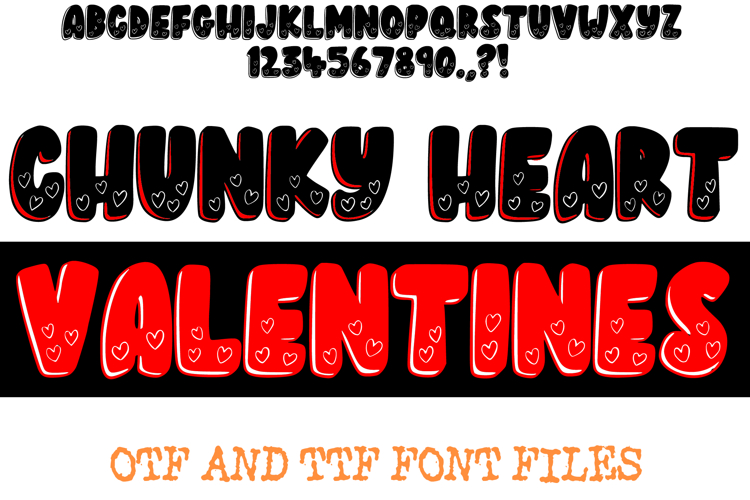
Chunky Heart Valentines Doodle Font Love Cute Typeface
Make a massive statement of love with the Chunky Heart Valentines Font! This high-impact display typeface is designed for maximum visibility, featuring thick, "puffy" bubble characters with a solid black fill. Each letter and number is uniquely decorated with a scattering of tiny, hand-drawn white hearts nestled inside, creating a sweet and stylish "cutout" effect perfect for the Valentine's season.
The heavy, rounded weight of these characters ensures your headlines stand out, while the internal heart details add a touch of romantic whimsy. Whether you are creating bold apparel for Galentine's Day or sweet digital graphics for February 14th, the Chunky Heart Valentines Font offers a professional yet artisanal look that captures the spirit of the holiday.
Bold High-Contrast Design: The solid black silhouettes make your text pop against any light-colored background or photograph.
Integrated Heart Doodles: Each character features multiple white hearts scattered inside, providing instant decorative flair.
Craft-Ready Performance: The clean, chunky shapes are ideal for easy weeding on vinyl cutting machines like Cricut and Silhouette.
Complete Seasonal Set: Includes all uppercase letters, numerals, and punctuation for total design flexibility.
Valentine’s Day Apparel: Design bold T-shirts, hoodies, and tote bags that celebrate the season of love.
Social Media Graphics: Create eye-catching Instagram quotes, YouTube thumbnails, and seasonal sale banners.
Greeting Cards & Stickers: Perfect for personalized gift tags, romantic stationery, and festive sticker packs.
Teacher & Classroom Decor: Use it for high-energy bulletin boards, student name tags, and holiday worksheets.